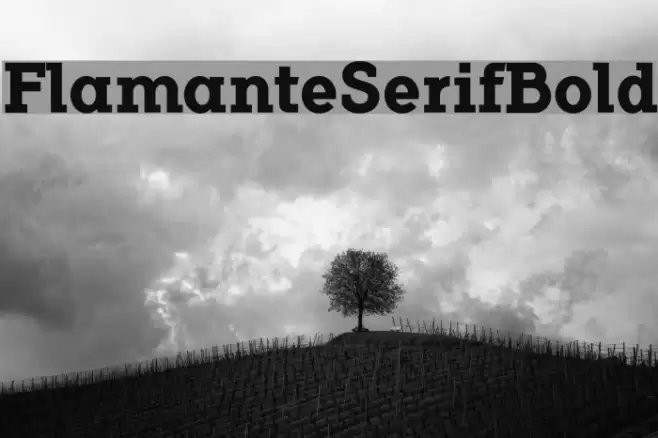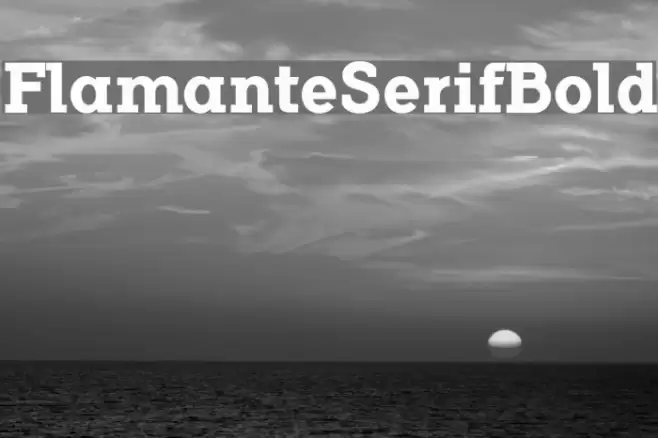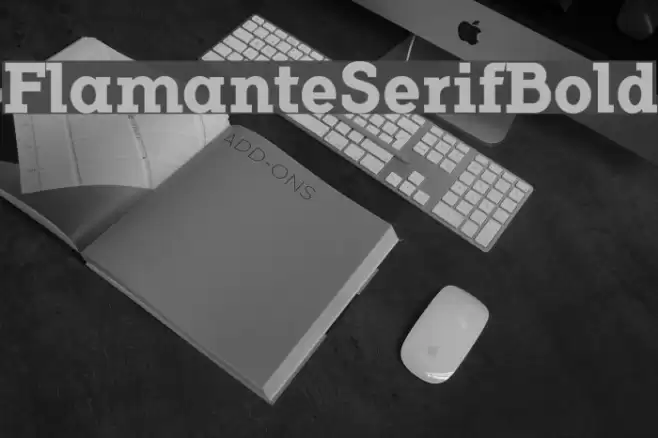
FlamanteSerifBold Font
FlamanteSerifBold Description
This font exhibits a bold and robust serif style, characterized by strong, thick strokes and prominent serifs that enhance its readability and impact. The uppercase letters are well-defined with a classic, authoritative presence, while the lowercase letters maintain a consistent weight and structure, ensuring clarity and balance. The numerals are clear and distinct, making them suitable for a variety of applications. Special characters are designed with the same boldness, ensuring they stand out effectively. Overall, this font combines traditional serif elements with a modern boldness, making it versatile for both print and digital media.
A bold, robust serif font with strong strokes and prominent serifs from Uncategorized fonts.
- Proposed Projects: Ideal for headlines, branding, editorial design, and any project requiring a strong, authoritative typeface.
- Overall Style: Classic
- Use Case: Headlines, Logos, Editorial Design